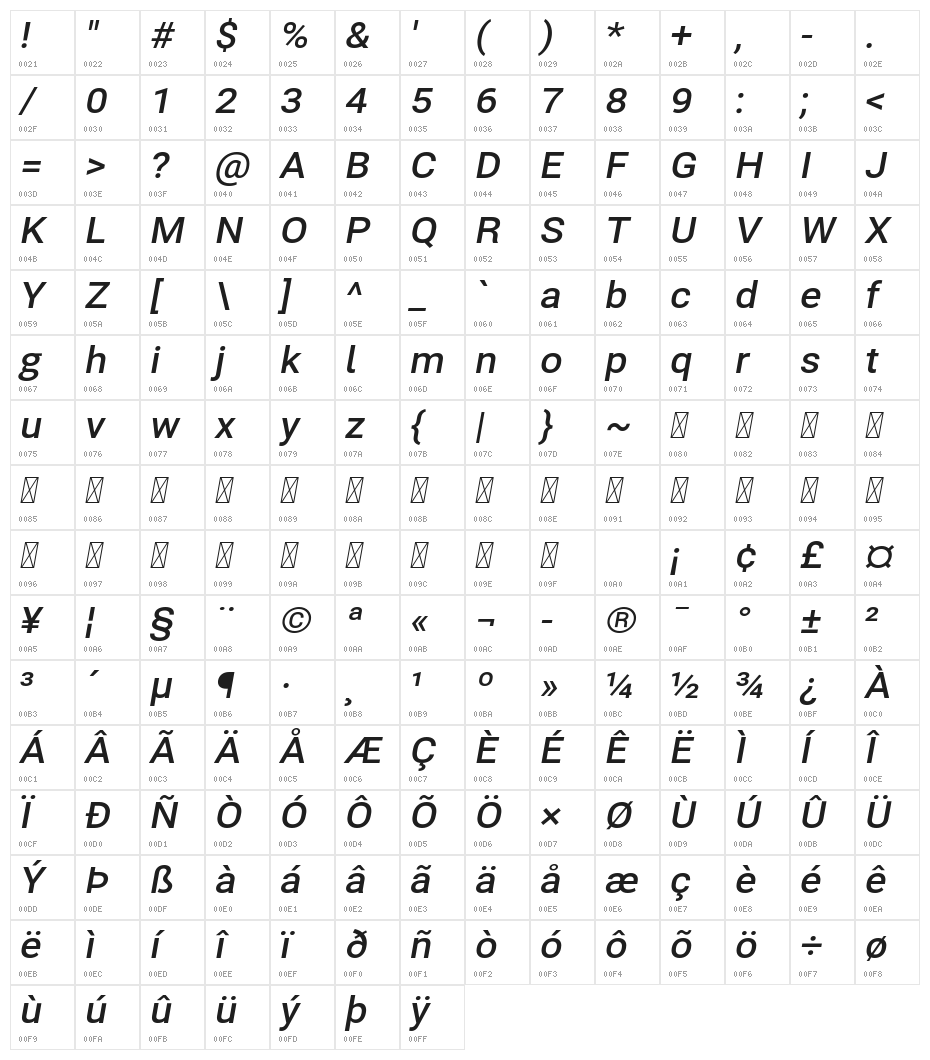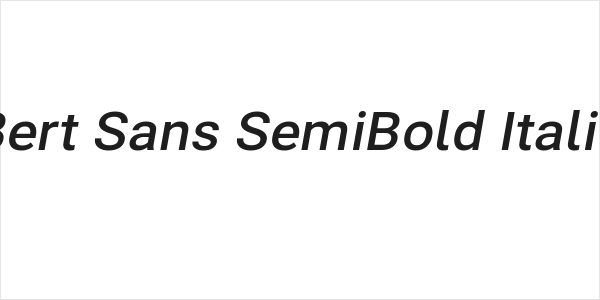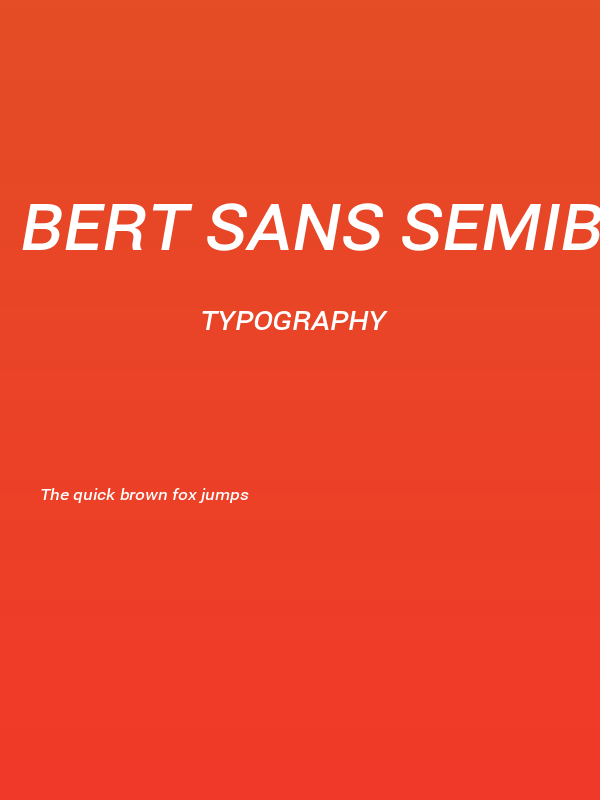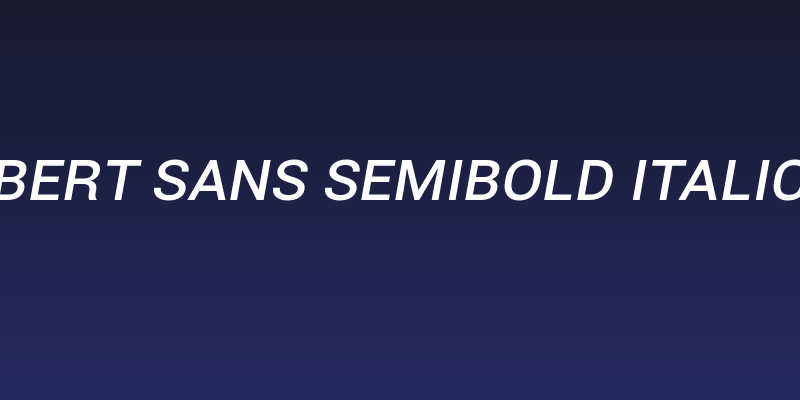
Bert Sans SemiBold Italic Font
Bert Sans SemiBold Italic Description
This font exhibits a modern and sleek design with a semi-bold weight, providing a strong yet elegant appearance. The italic style adds a dynamic and forward-leaning character, making it suitable for contemporary applications. The sans-serif nature ensures clean lines and a minimalist aesthetic, enhancing readability across various media. The characters are well-proportioned, with consistent stroke widths that contribute to a balanced and harmonious look. The numerals and special characters maintain the same stylistic integrity, ensuring uniformity throughout the typeface.
| Proposed Projects | Ideal for branding, advertising, digital interfaces, and editorial design where a modern and professional look is desired. |